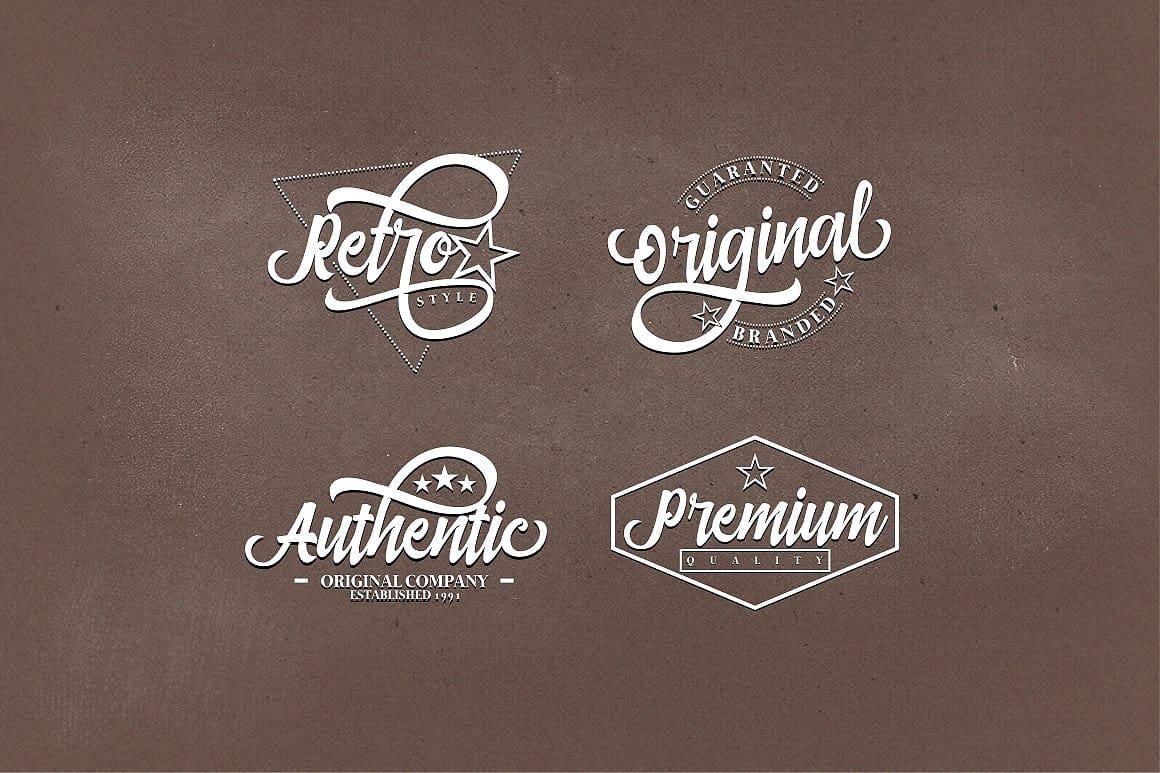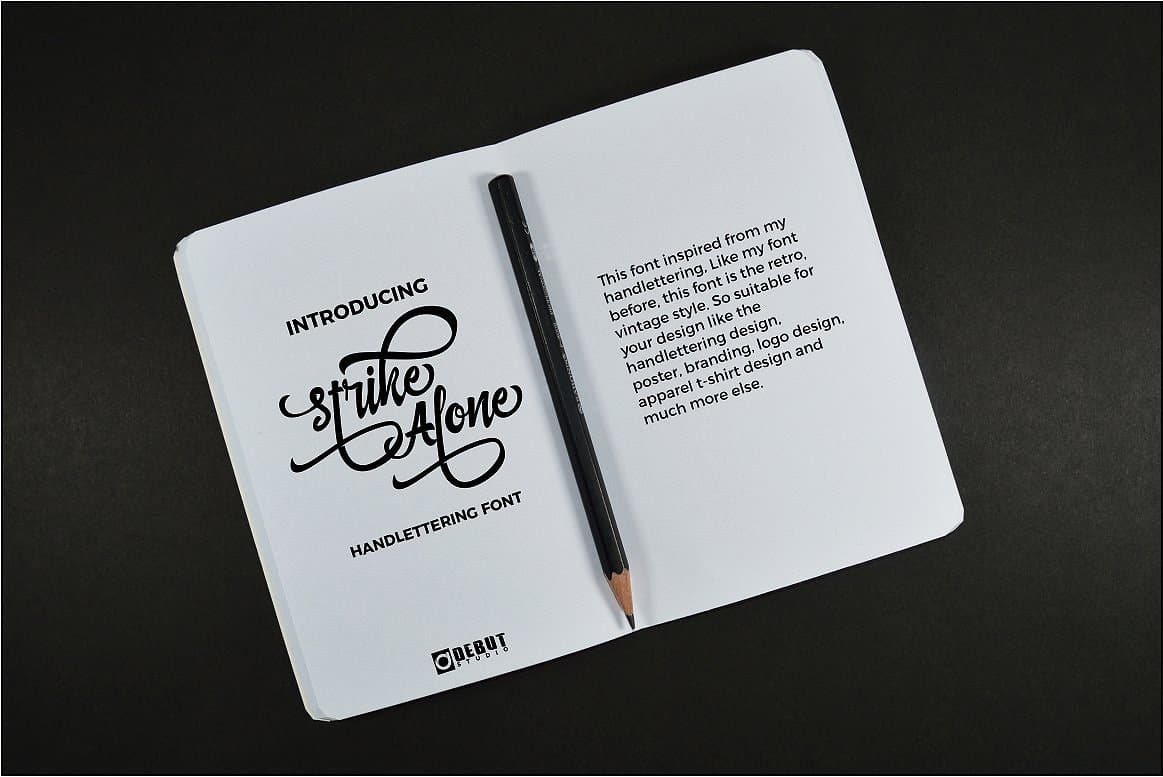
Strike Alone Font
Strike Alone Font is broadly popular for its unique typeface. That is additionally famous for its calligraphic typeface. That is one of the outstanding fonts. This font is a lovable series specially designed for clean and comfortable on-show assessment.
It’s orderly, has the entertainment of the top-notch element. It moreover additives four hundred glyphs and trade characters. The font includes all characters in each uppercase and lowercase letters. Now, you may have your private favored serif font and it can or might not seem on our list, but, we advise taking within the course of getting a check the alternatives.